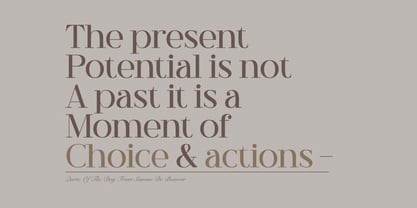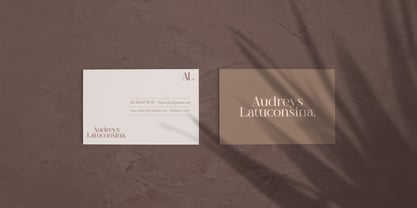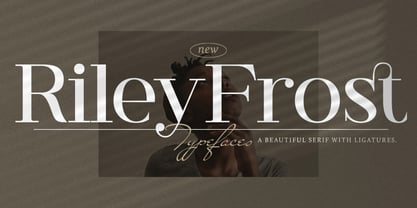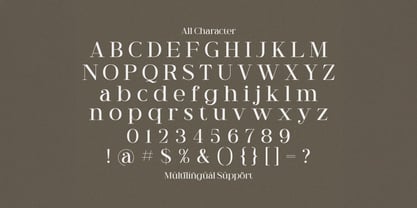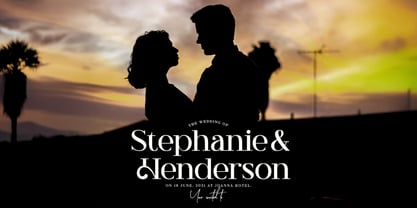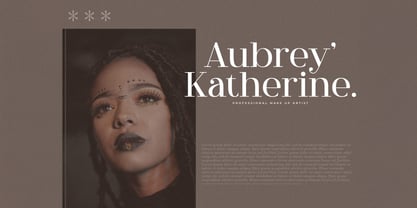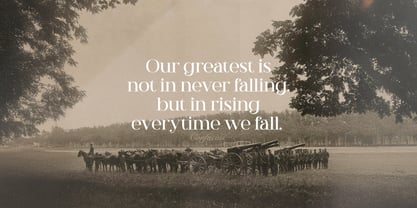
The Riley Frost Font Family was designed by Virgiawan Listanto and published by Stringlabs Creative Studio. Riley Frost contains 1 styles. More about this family
Riley Frost is a laid-back serif font with a modern twist, combining classic structure with soft, approachable details. Its balanced contrast and gentle curves give it a relaxed yet polished feel perfect for designs that want to be both elegant and friendly. Ideal for branding, packaging, editorial design, and lifestyle content, Riley Frost brings subtle sophistication to your creative projects without feeling too formal.